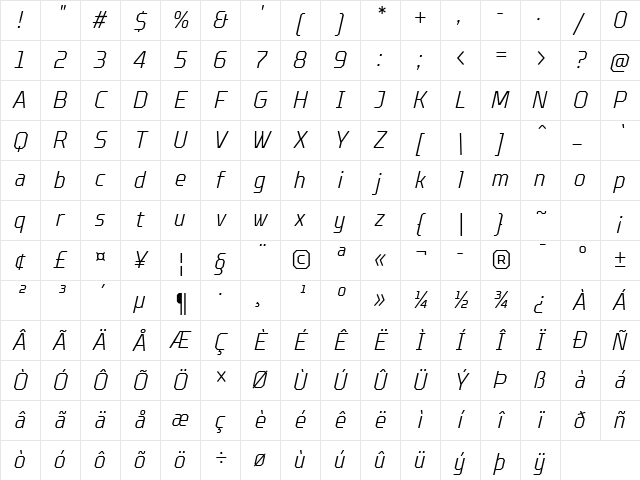
TT Octosquares Trl Cnd XLt It Free Font
TT Octosquares Trl Cnd XLt It
Style: XLt It
Designer: TypeType
Design Context for TT Octosquares Trl Cnd
TT Octosquares Trl Cnd is a composed and adaptable typeface that performs quietly and consistently across a wide range of design contexts. Its slender proportions lend an understated elegance to any composition.